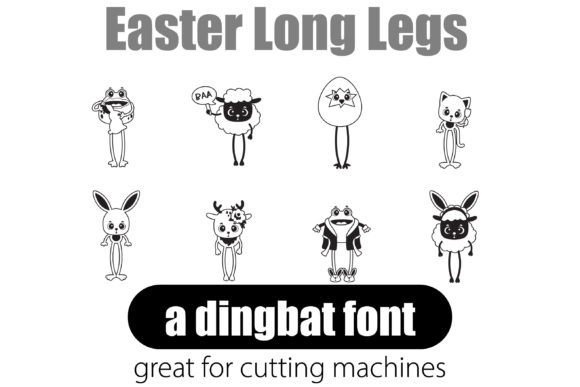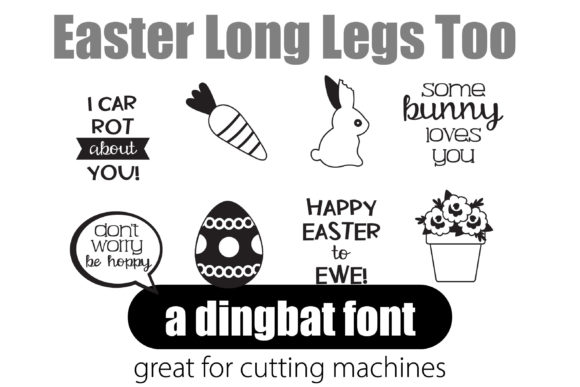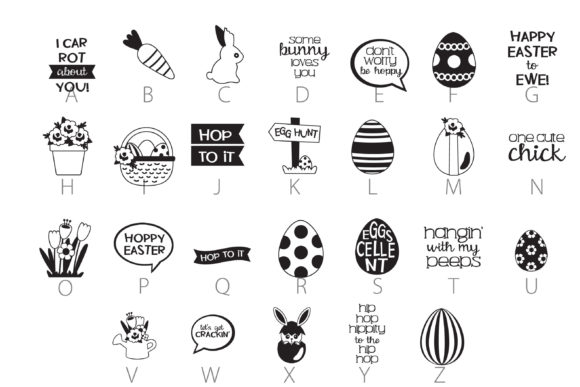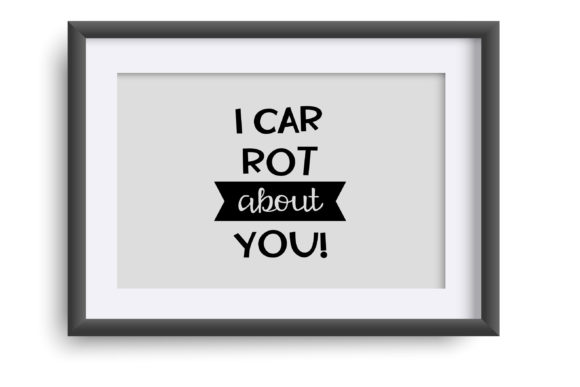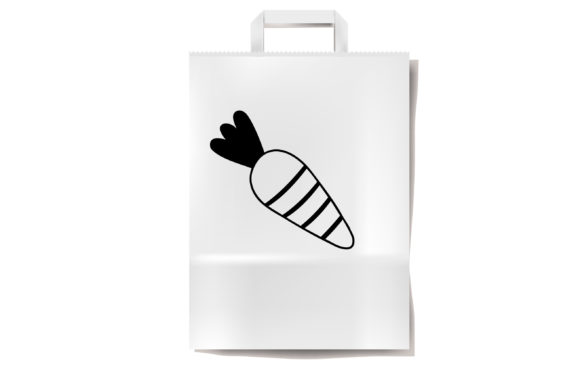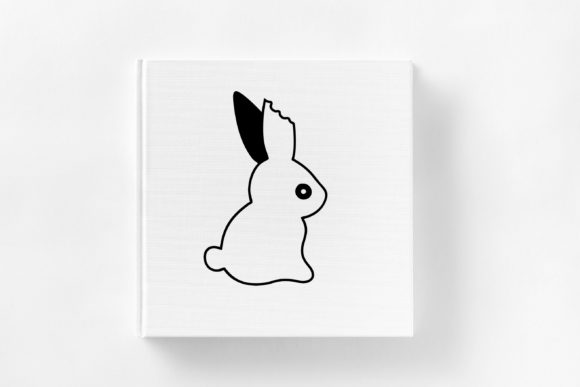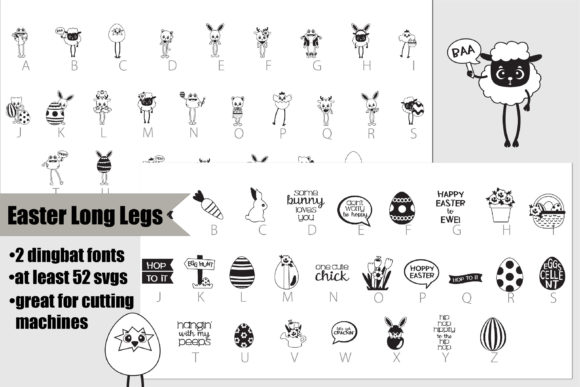
Easter Long Legs Font: A Fun and Creative Addition to Your Design Arsenal
Are you a designer or crafter looking for a unique and playful way to add some Easter-themed flair to your projects? Look no further than the Easter Long Legs Font bundle! This exciting collection includes not one, but two dingbat fonts that are perfect for vinyl and cutting machines. In this article, we’ll take a closer look at what makes these fonts so special and how you can use them to take your designs to the next level.
What’s Included in the Easter Long Legs Font Bundle?
The Easter Long Legs Font bundle includes two dingbat fonts, each with its own unique characteristics. The first font features long-legged Easter-themed images, while the second font includes Easter-themed elements. Both fonts are designed to be easily used with vinyl and cutting machines, making them perfect for crafters and designers who want to create custom Easter-themed projects.
Long-Legged Easter-Themed Images
The first font in the bundle features long-legged Easter-themed images that are sure to bring a smile to anyone’s face. These images include a range of Easter-themed characters, from bunnies and eggs to chicks and flowers. Each image is carefully designed to be fun and playful, making them perfect for use in Easter-themed projects such as decorations, cards, and gift tags.
Easter-Themed Elements
The second font in the bundle includes Easter-themed elements that can be used to add a touch of Easter flair to your designs. These elements include a range of shapes and symbols, from Easter eggs and bunnies to flowers and leaves. These elements can be used to create custom Easter-themed designs, such as stickers, labels, and other decorative items.
Perfect for Vinyl and Cutting Machines
One of the best things about the Easter Long Legs Font bundle is that it’s specifically designed for use with vinyl and cutting machines. This means that you can easily use these fonts to create custom Easter-themed projects, such as vinyl decals, stickers, and other decorative items. Whether you’re a professional designer or a crafter, these fonts are perfect for anyone looking to add a touch of Easter flair to their projects.
Tips for Using the Easter Long Legs Font
Here are a few tips for using the Easter Long Legs Font in your designs:
- Use the long-legged Easter-themed images to create custom Easter-themed decorations, such as garlands and banners.
- Use the Easter-themed elements to add a touch of Easter flair to your designs, such as stickers, labels, and other decorative items.
- Experiment with different font sizes and colors to create unique and eye-catching designs.
- Use the Easter Long Legs Font to create custom Easter-themed gifts, such as cards, gift tags, and wrapping paper.
- Two dingbat fonts: long-legged Easter-themed images and Easter-themed elements
- Perfect for vinyl and cutting machines
- Fun and playful Easter-themed designs
- Easily customizable for use in a variety of projects